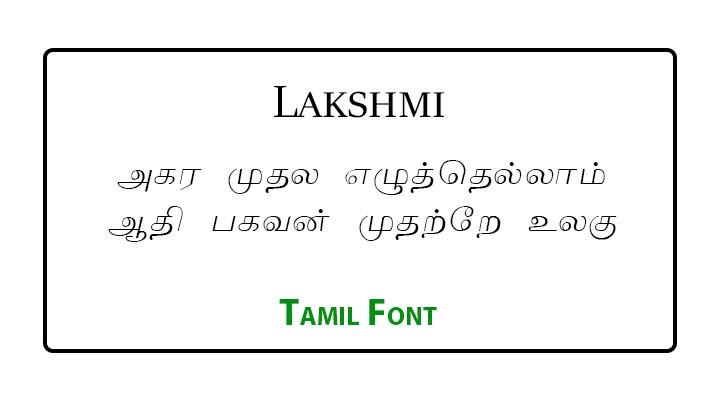
Lakshmi Tamil Font Free Download. Lakshmi is one of the Tamil Regular Font. Specially used in publications. Here you can download Font and Keyboard Layout for Free. This font is widely used by Tamil Nadu and Sri Lankan Tamil Peoples. The following font was design and generated by by Fontograpgher 3.5.
Lakshmi Tamil Font Preview